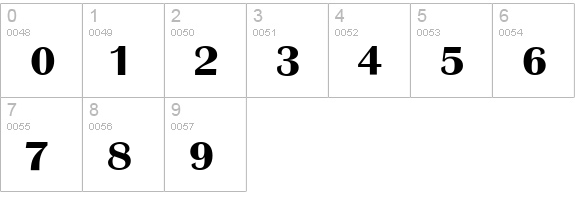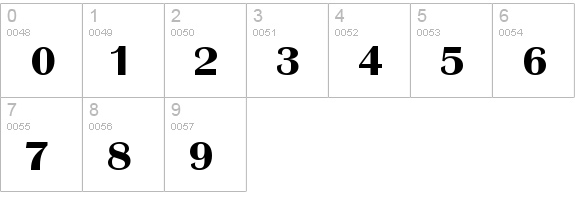
CgBritannia-Bold is a strong, high-contrast variant in the CgBritannia typeface family \xE2\x80\x94 well suited to headlines, attention-grabbing titles, and strong calls-to-action.
CgBritannia-Bold is a bold and commanding font that exudes strength and authority. Its thick, sturdy letterforms make a bold statement and are perfect for headlines, titles, and branding. With its clean lines and classic design, CgBritannia-Bold is versatile and can be used in a variety of design projects. This powerful font is free to download at FontsMarket.com, making it accessible to designers and creatives looking to add a touch of boldness to their work. Whether you're creating posters, logos, or advertising materials, CgBritannia-Bold is sure to make a lasting impression. Download it now and elevate your designs with this impactful typeface.